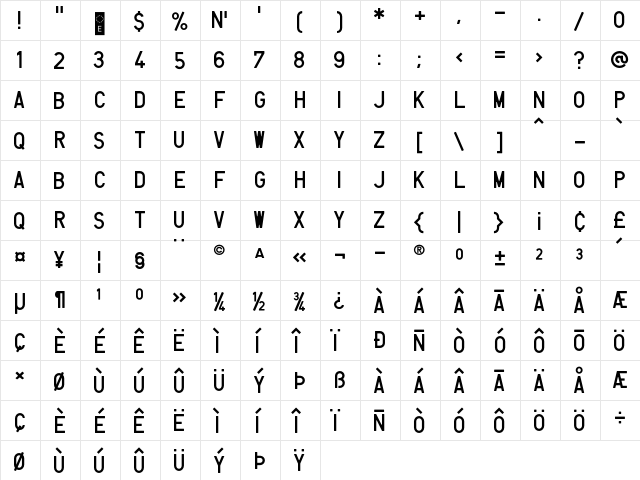
Matricula Espanola Regular
Design Context for Matricula Espanola Typeface
Matricula Espanola is a composed and adaptable typeface that performs quietly and consistently across a wide range of design contexts.